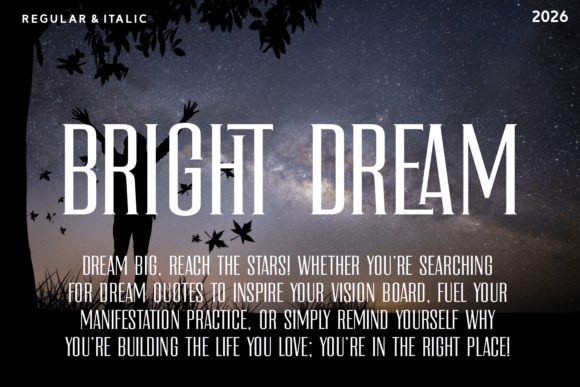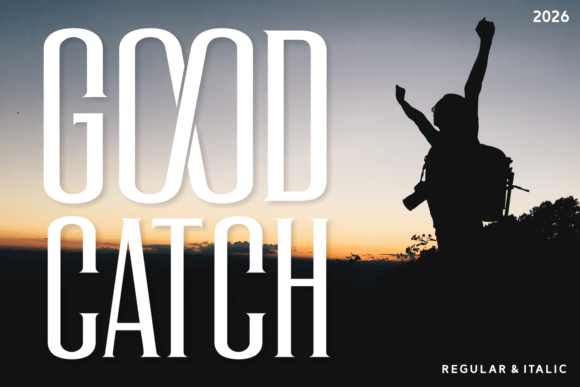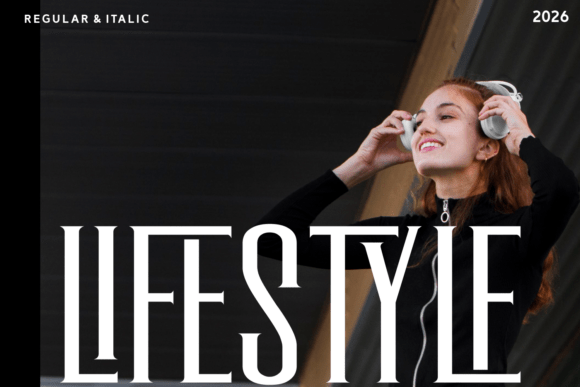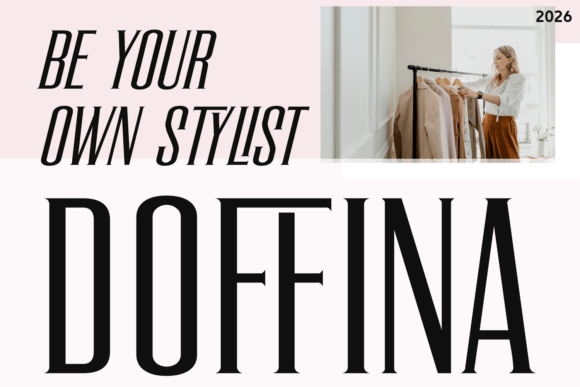
Soothe Font
Breathe life into your design with “Soothe,” a versatile serif font that shines in both intimate and professional settings. Its spirit exudes luxury and romance, uniquely accentuated with a heart swash that epitomizes modern cheerfulness. Raise a toast to life’s grand and minute moments with this font that complements birthdays, weddings, and celebrations with its charm and liveliness.